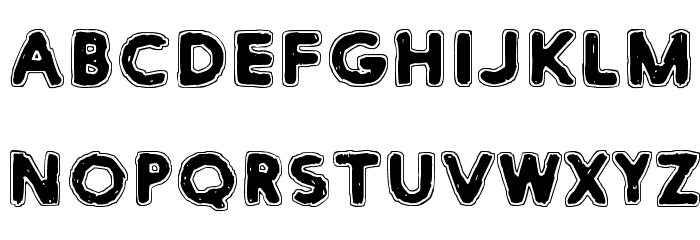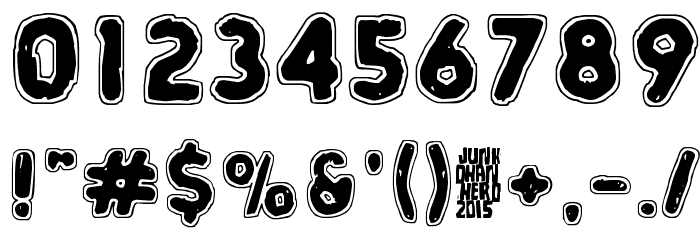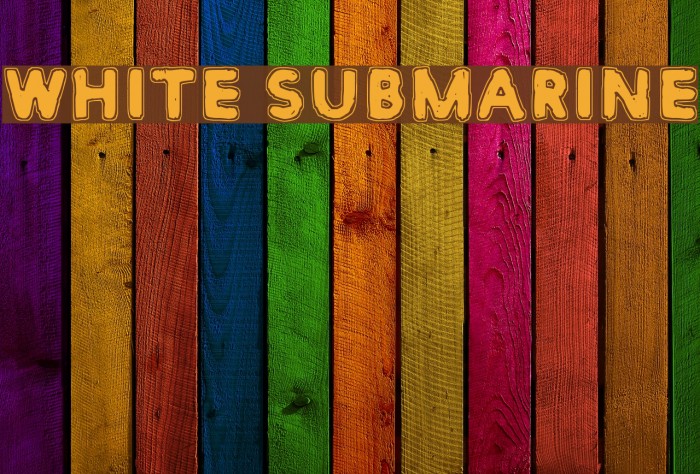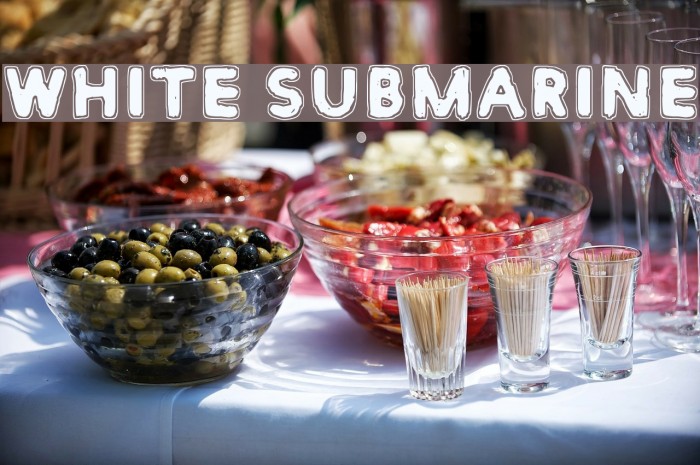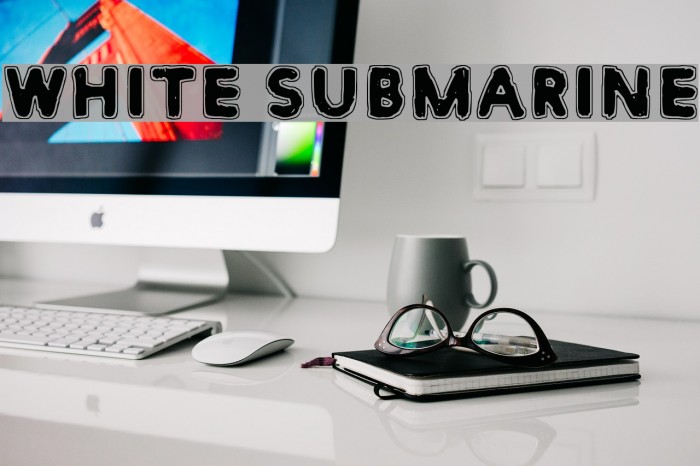
White Submarine Font
This font features a bold and playful style with a distinct outline that gives each character a three-dimensional appearance. The letters are rounded and have a hand-drawn feel, adding a whimsical and informal touch. The strokes are thick and consistent, providing a strong visual impact. The font includes both uppercase and lowercase letters, numbers, and a variety of special characters, making it versatile for different uses. Its unique design is eye-catching and suitable for creative projects that require a fun and engaging typeface.
A bold, playful font with a hand-drawn, outlined style.
- Proposed Projects: Ideal for children's books, posters, comic strips, and playful branding.
- Overall Style: Playful, Whimsical